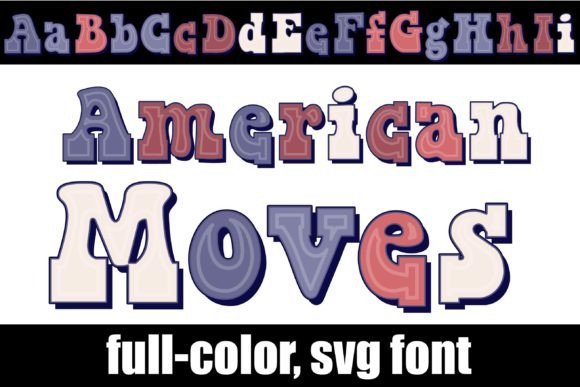
Introducing Americana Moves Font: A Retro Lettering Delight
I’ll never forget the design project that led me to discover the Americana Moves Font. I was working on a vintage-themed craft project, and I needed a font that captured the essence of classic American nostalgia. After hours of scouring the internet, I stumbled upon this gem – a full-color font featuring retro lettering with a red, white, and blue color palette. It was love at first sight! 💕
- ✨ The unique retro aesthetic that instantly adds a touch of nostalgia to any design
- ✅ The convenient alt version with additional colors accessible through the system’s character map
While the Americana Moves Font is a fantastic addition to any design project, there are a few things to keep in mind:
The Americana Moves Font was inspired by the classic American design of the 1950s and 60s. Imagine vintage advertisements, retro packaging, and classic signage – that’s the aesthetic this font aims to capture. The designer wanted to create a font that would evoke a sense of nostalgia and patriotism, while still being versatile and modern.